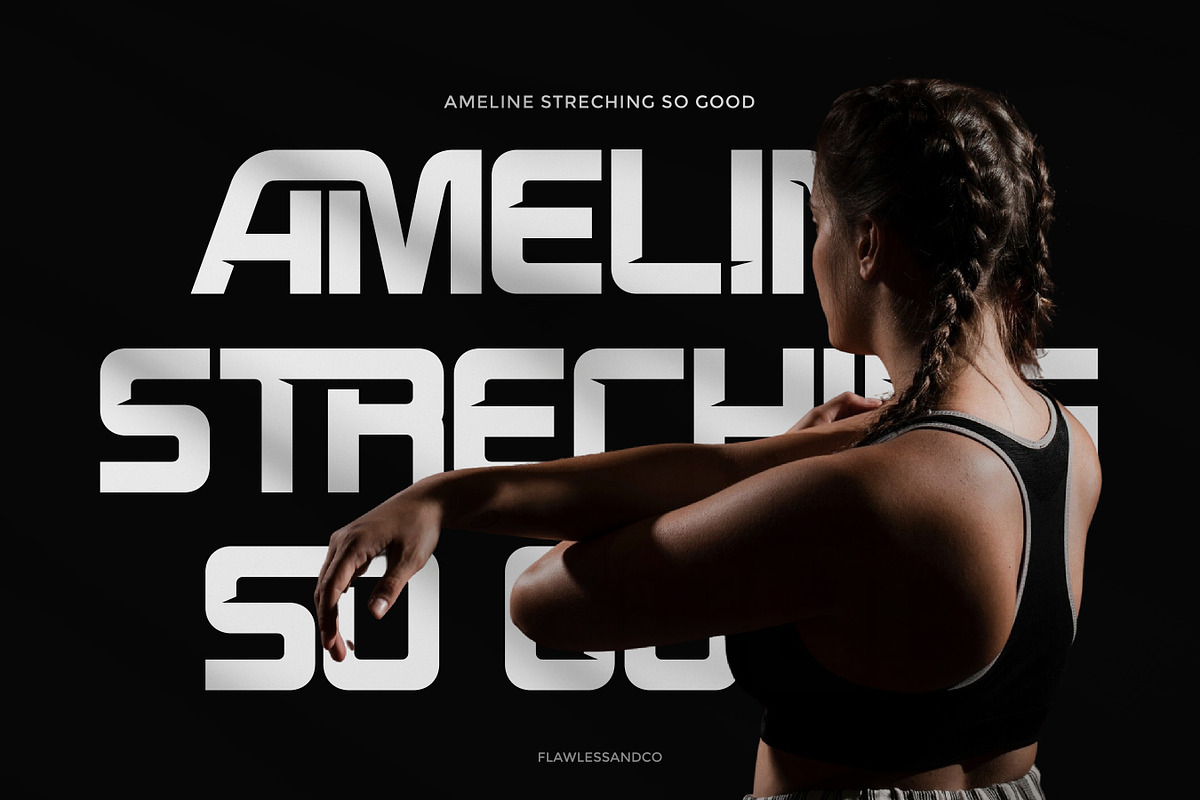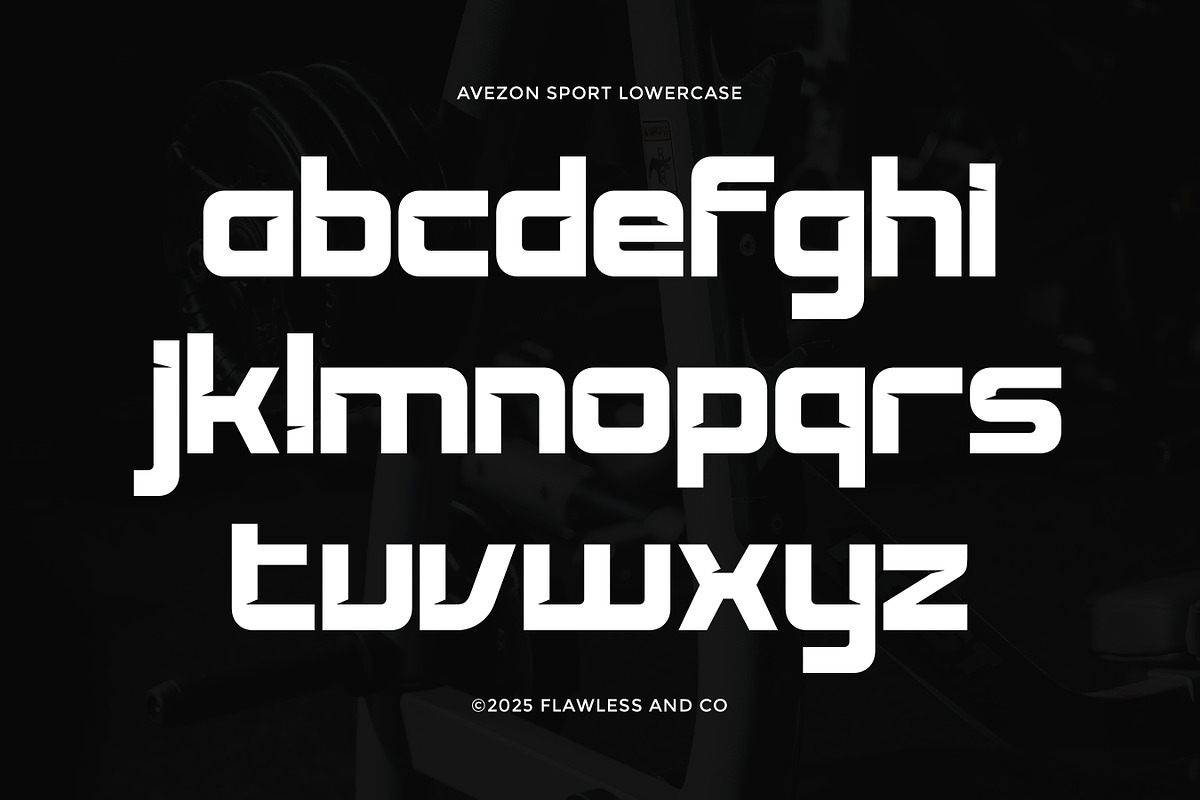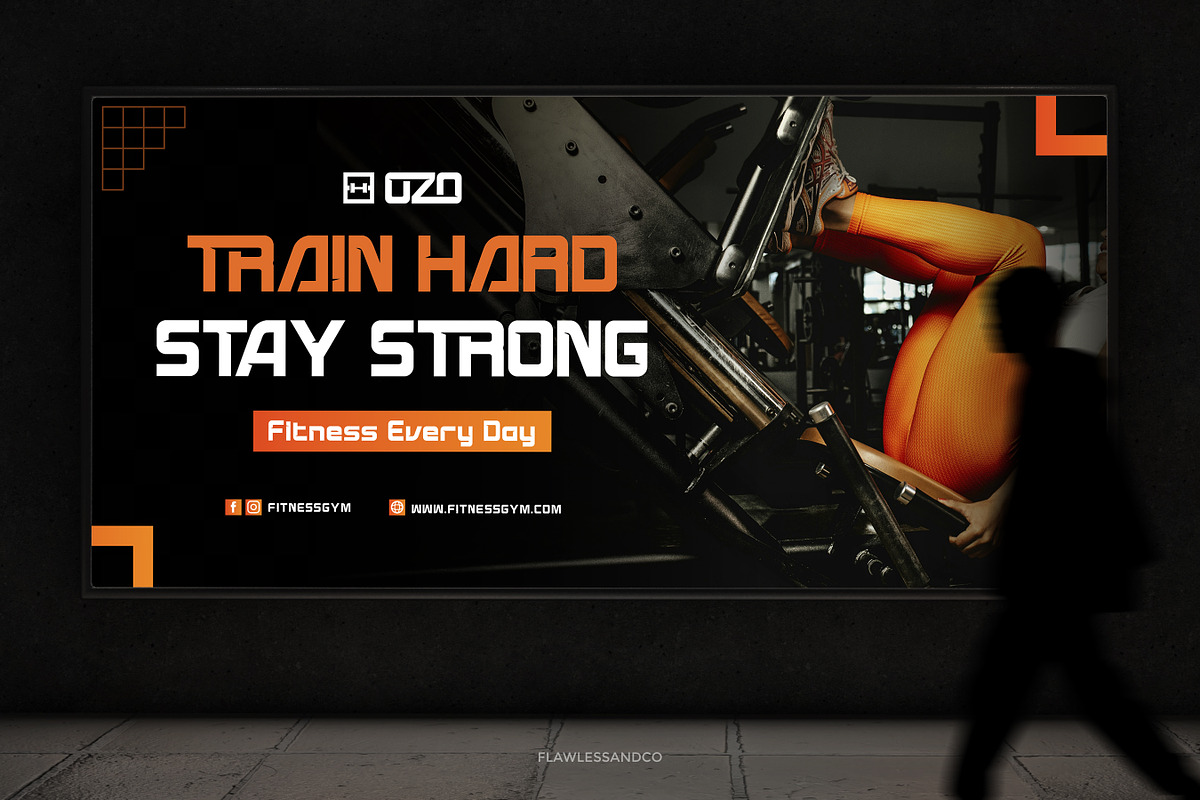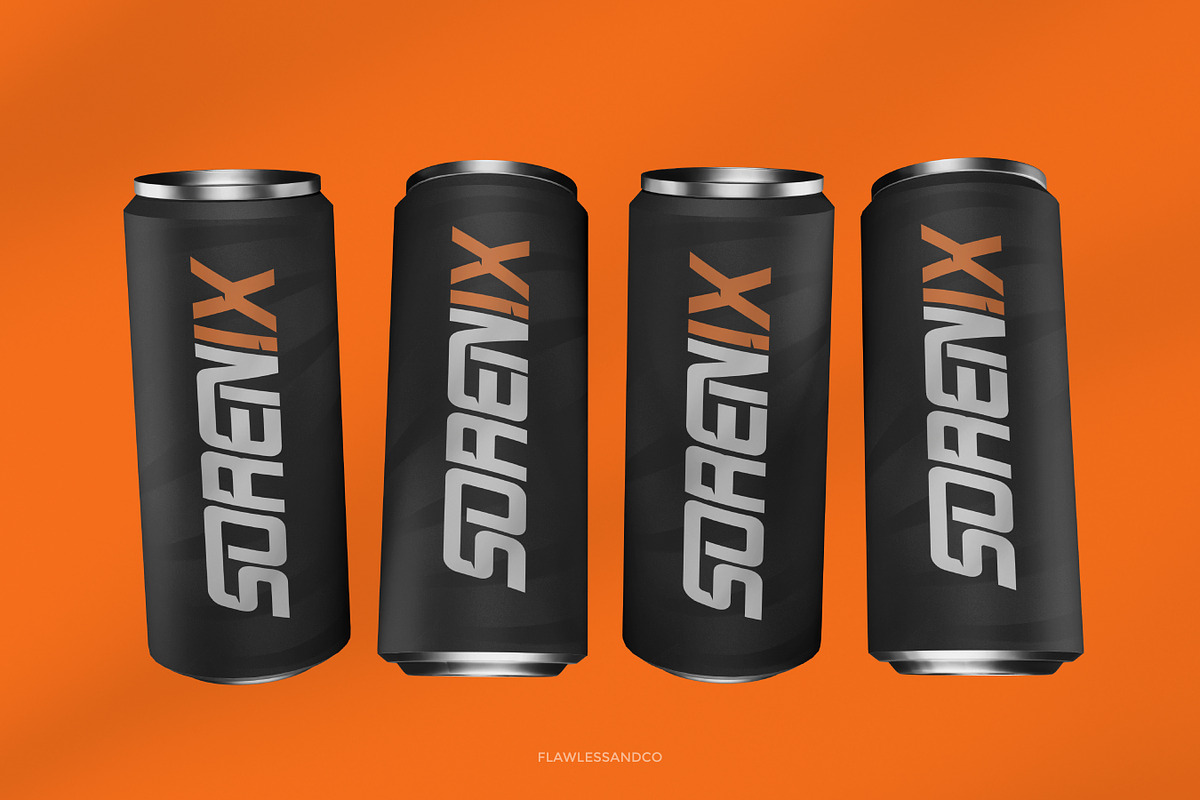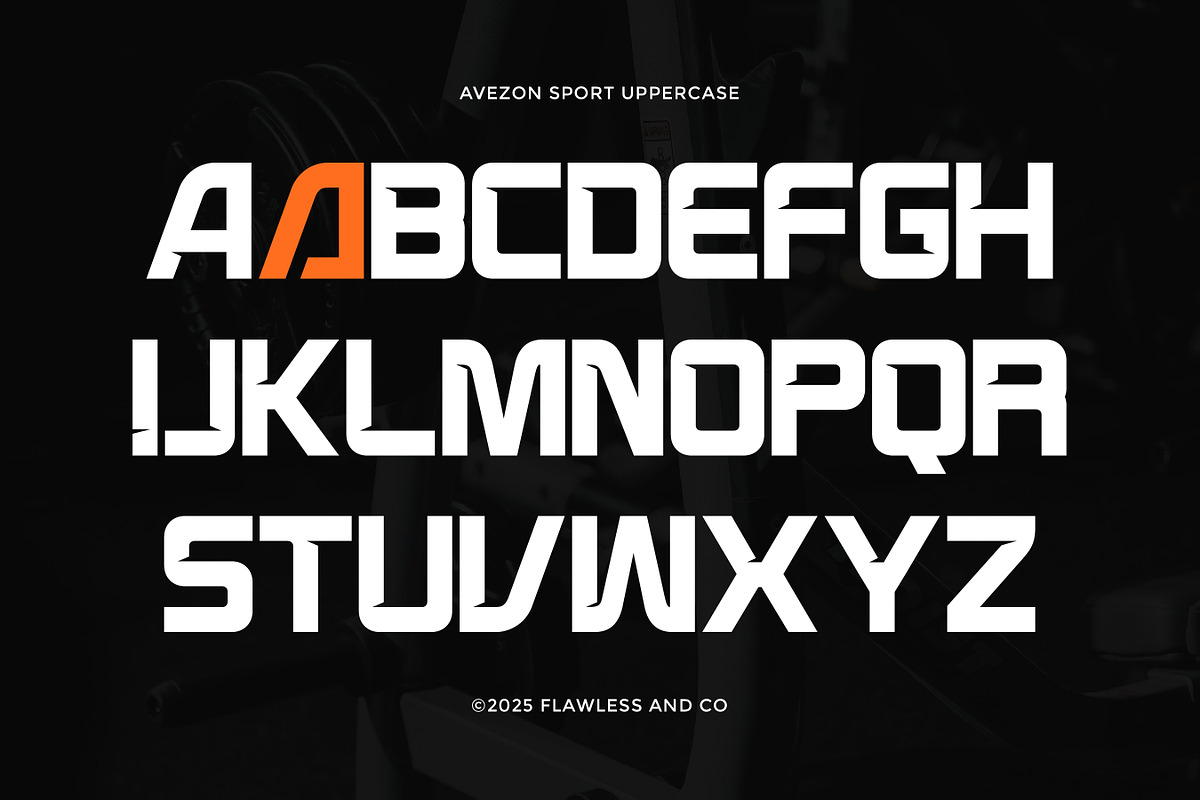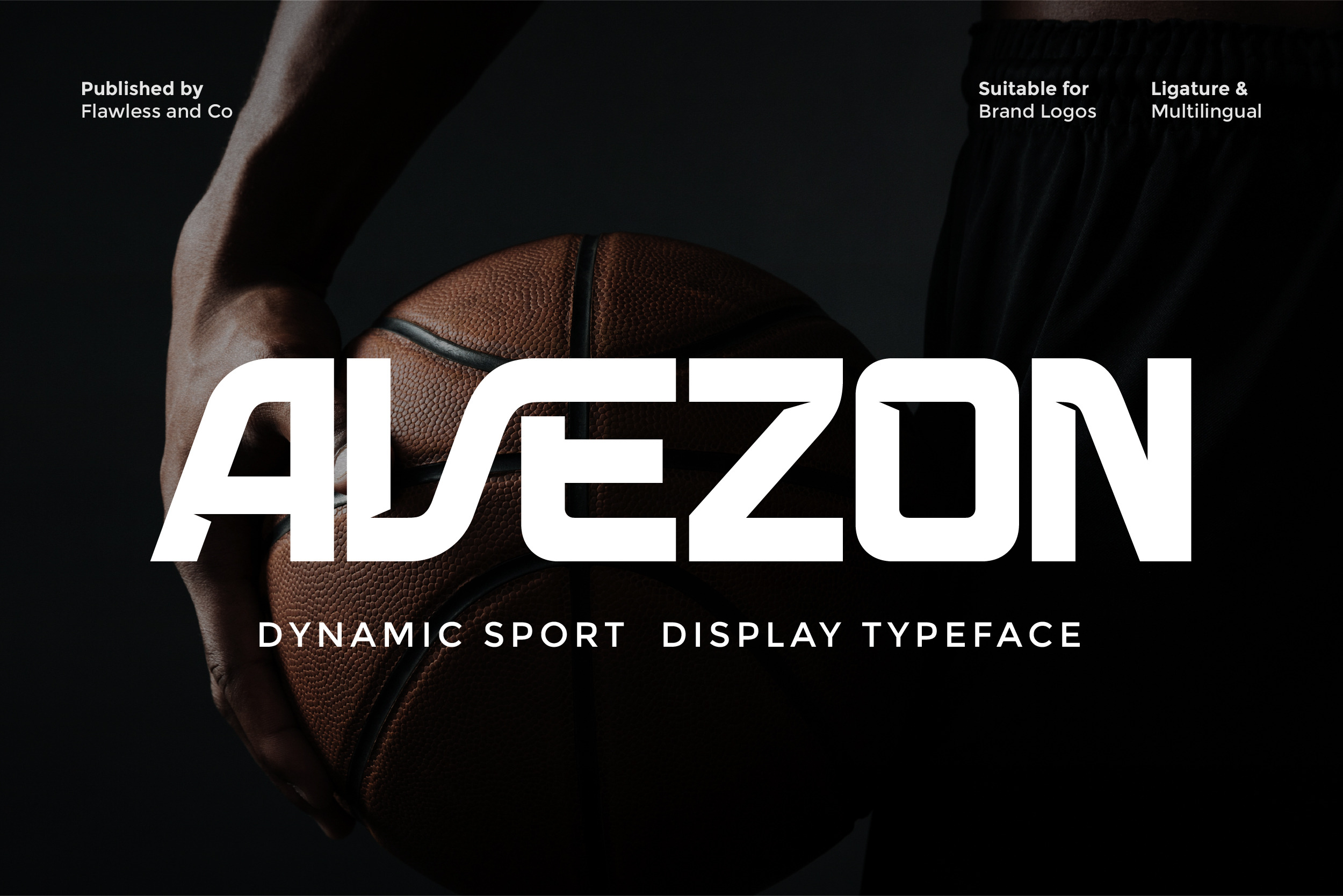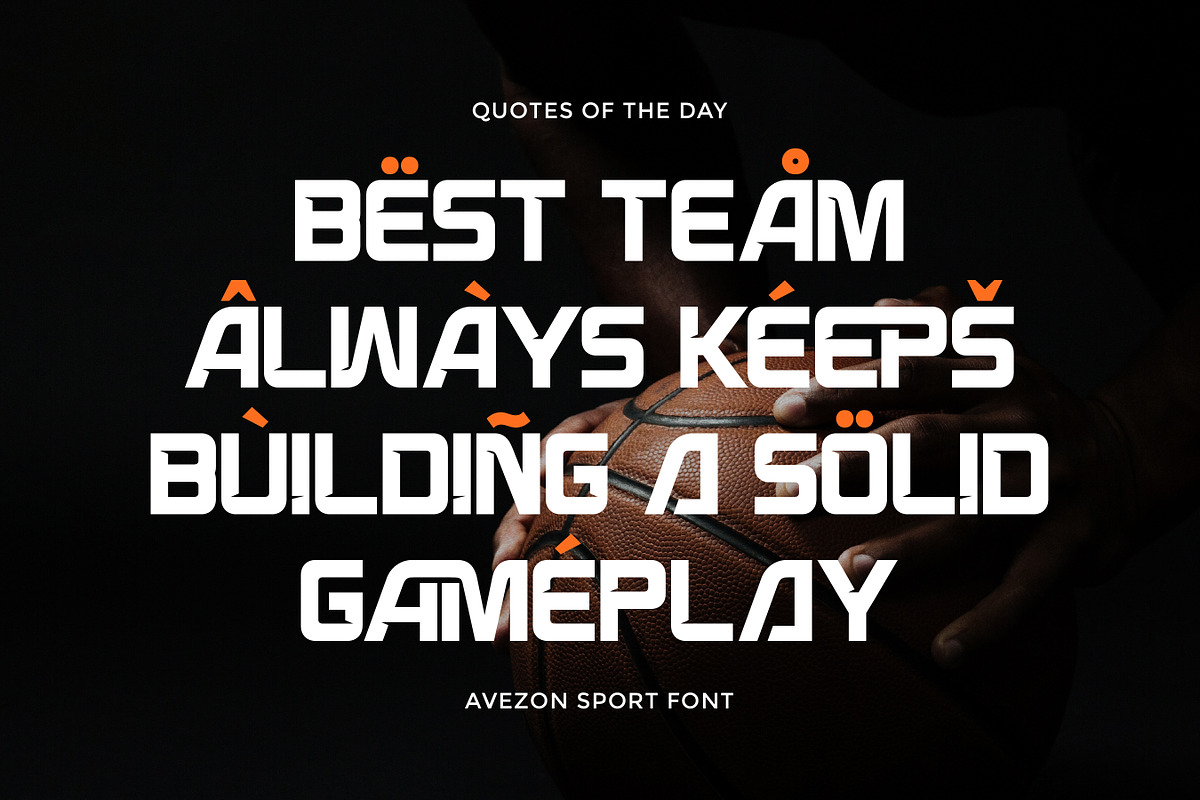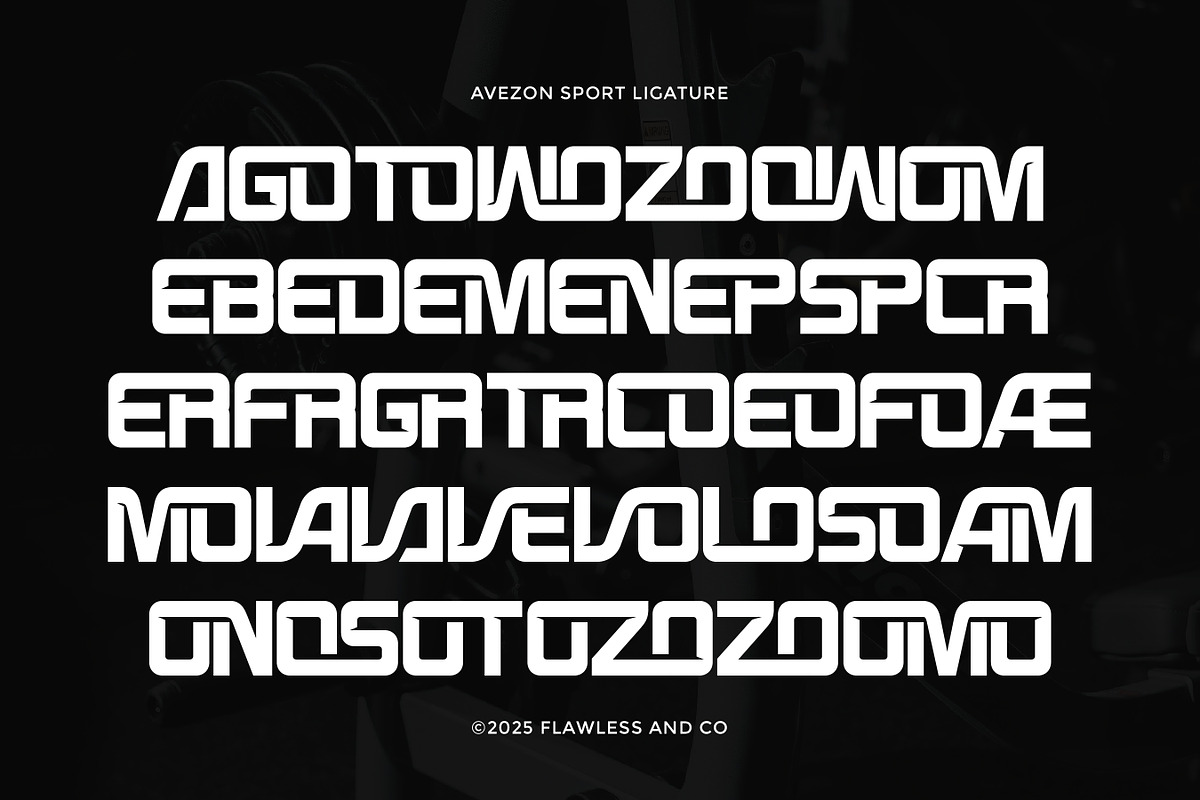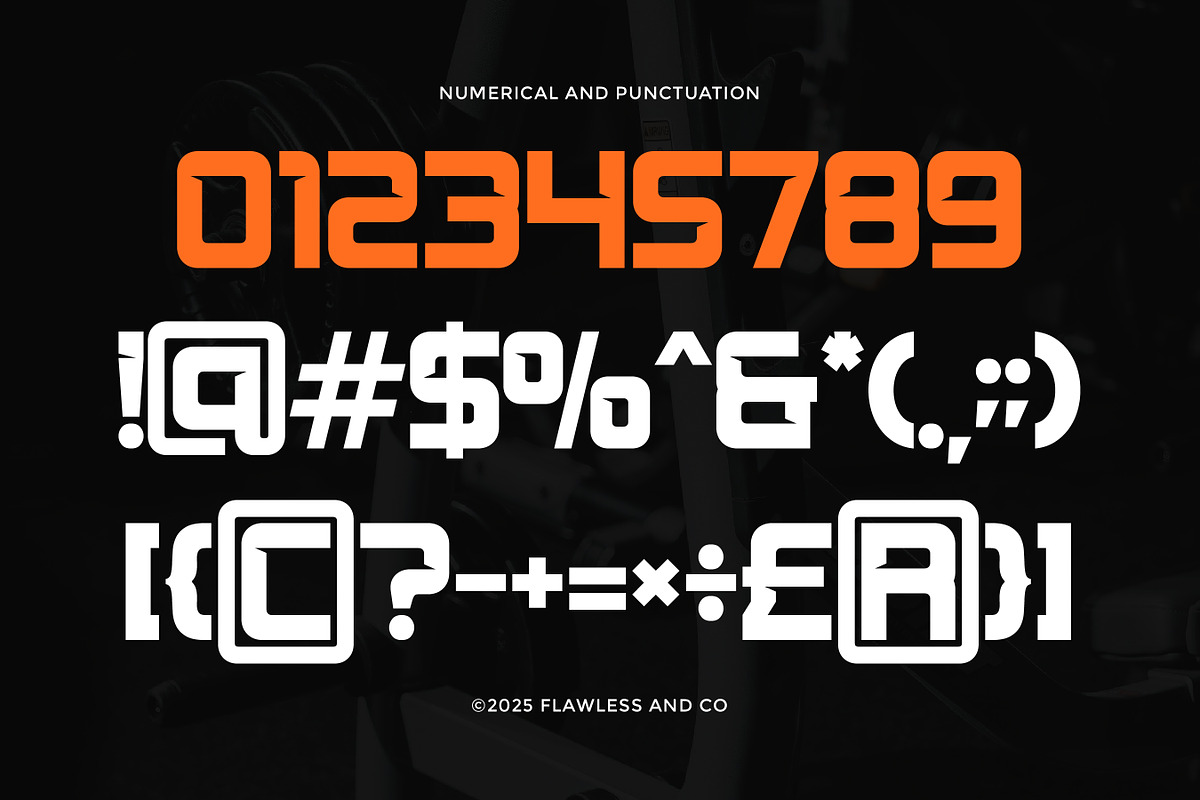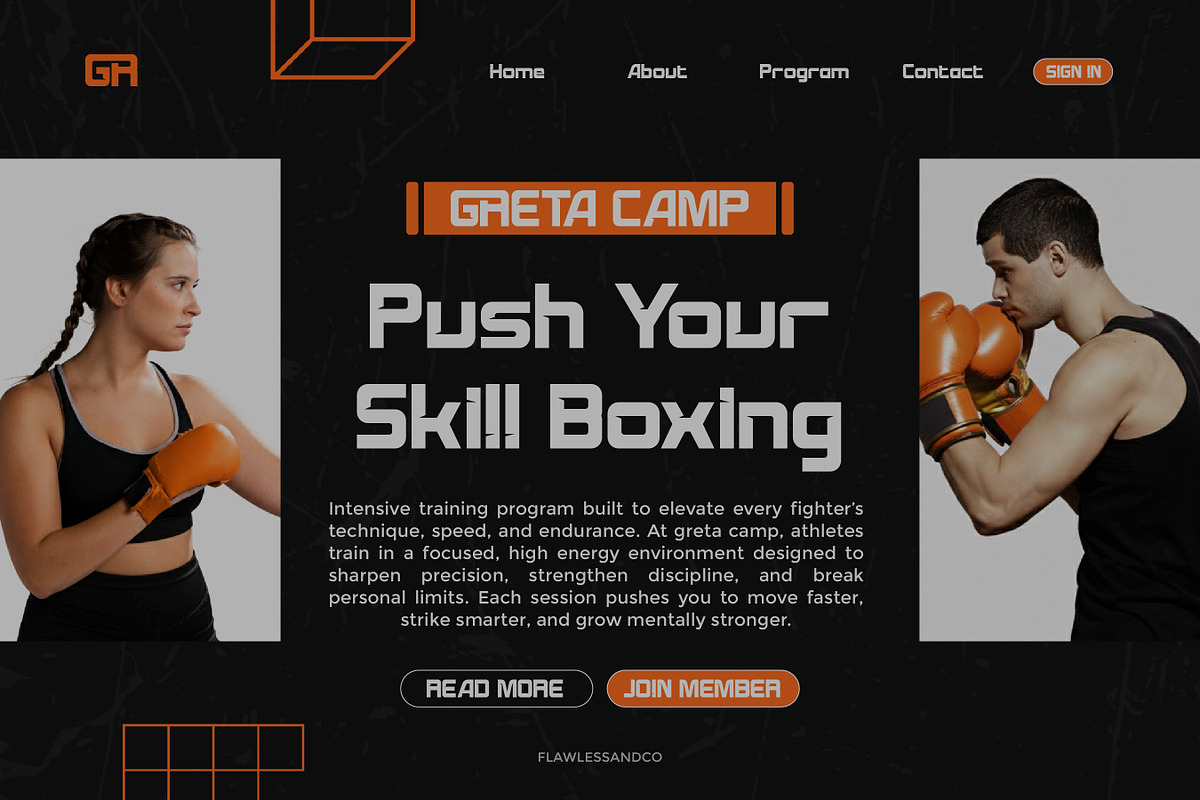
Avezon - Sport Display Font
Avezon is a powerful sport display font designed to bring speed, strength, and winning energy into every visual identity. With its sharp angles, bold construction, and dynamic flow, Avezon immediately commands attention — making every word look fast, fierce, and unstoppable. Whether used in professional sports branding or high-impact promotional graphics, this font delivers a look that feels competitive, fearless, and built to win. Avezon combines modern athletic aesthetics with clean readability, making it the perfect tool for designers who want typography that looks tough, professional, and performance-driven.
Who Should Use Avezon?
Avezon is made for designers, branding studios, and businesses that need a bold and confident visual identity — especially those in the world of sports, fitness, and performance-driven industries. If your goal is to create branding that feels dominant, memorable, and full of competitive energy, Avezon is the perfect match.
A Must-Have Font for Brand and Logo Creators and Designers
With its bold athletic structure, sharp energy, and competitive spirit, Avezon becomes a game-changing tool for branding experts and logo creators who want designs that scream confidence, dominance, and modern sport appeal. Whether you're developing a professional team emblem, premium sportswear brand, or high-impact athletic merchandise, Avezon guarantees your logo doesn’t just look strong — it looks elite, fearless, and built to win.
Why Choose Avezon for Brand and Logo Projects?
Its modern sporty structure, sharp angles, and strong visual weight make every lettering look fast, dominant, and memorable. Avezon stands out perfectly across digital and print media — from jerseys, signage, and energy product packaging to sports advertising and promotional campaigns.
Suitable For:
- Logo design and branding projects
- Product packaging and label design
- Fashion and lifestyle branding
- Bold headlines and advertising
- Website headers and social media graphics
- Modern editorial and print materials